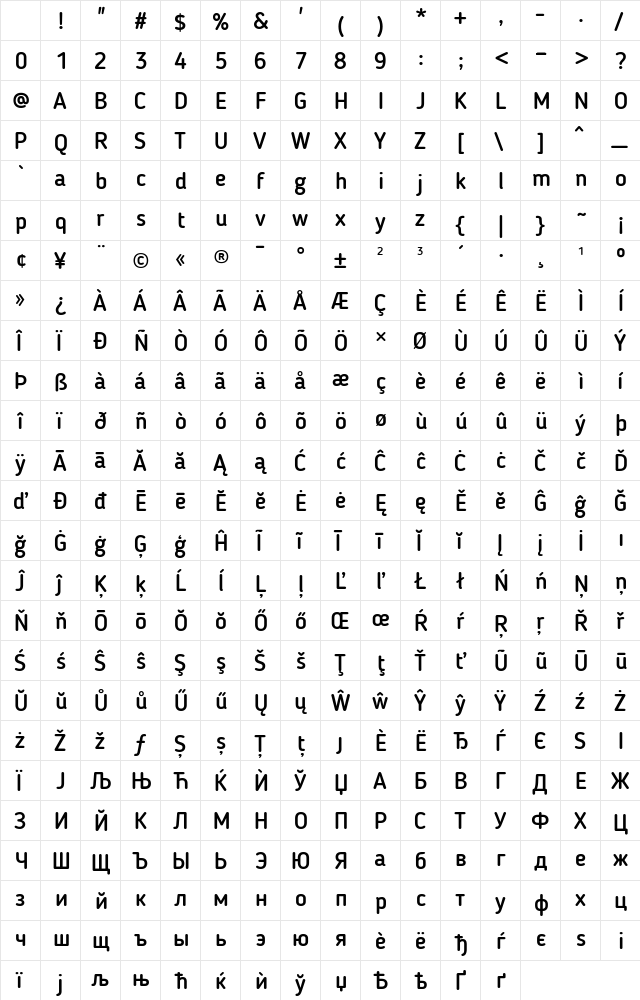
Complete Blogger Sans Medium glyph index. Displaying only characters natively supported by Blogger Sans Medium font.
Blogger Sans is a composed and adaptable typeface that performs quietly and consistently across a wide range of design contexts.